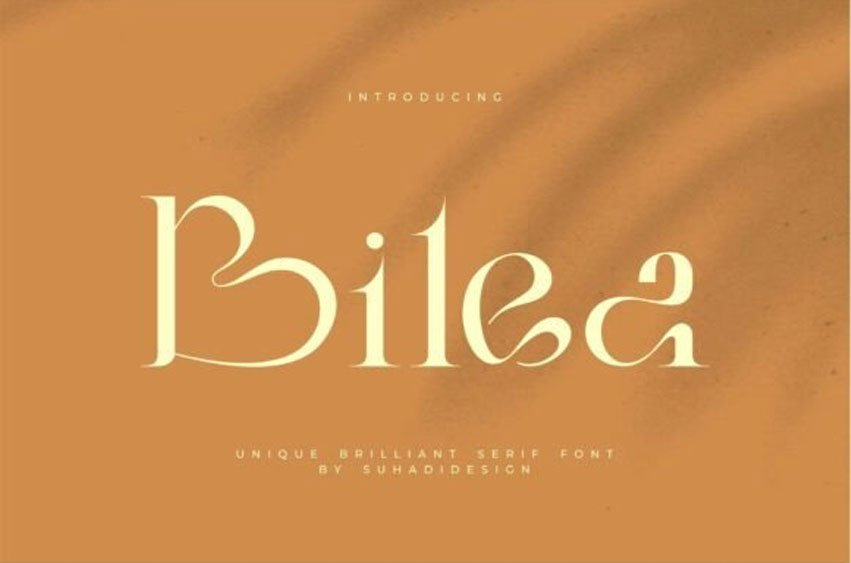
Bilea Font is a unique and brilliant serif font that blends elegance and creativity with effortless sophistication. Its sleek, refined letterforms paired with artful curves and sharp contrasts create a striking visual balance that instantly commands attention.
Designed for high-impact branding, Bilea exudes a luxurious, modern vibe while maintaining the timeless appeal of classic serif typography. The subtle details and graceful flow of its strokes make it ideal for projects that require style and refinement.
Perfect for editorial layouts, fashion branding, logo design, and premium packaging, Bilea elevates any project with its distinctive, high-end aesthetic. Whether used for bold headlines or elegant accents, this font ensures your design stands out with sophistication and originality.